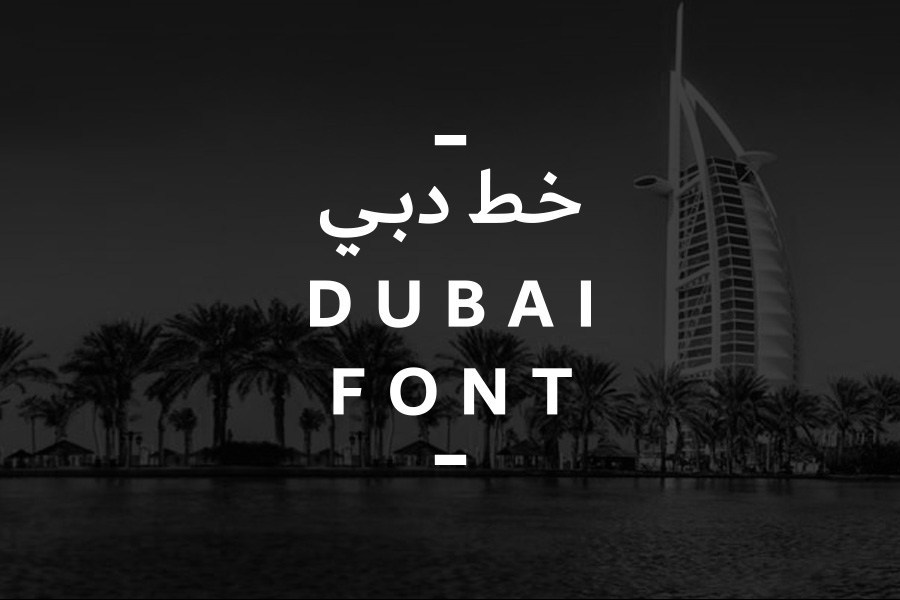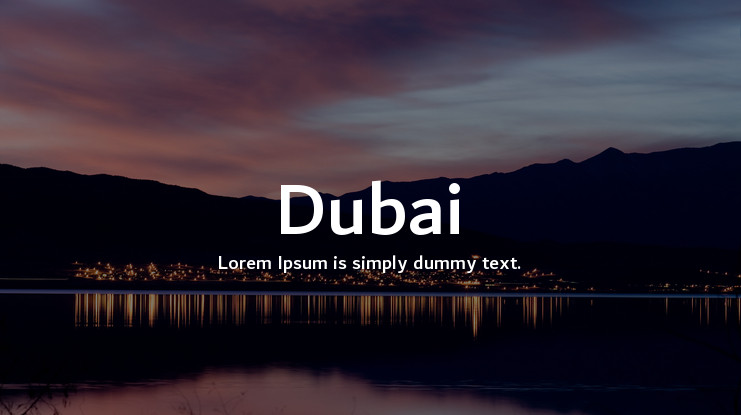
Dubai Font
Dubai Font is famous for its Arabic typeface. This typeface is one of the most used typeface in Microsoft Word and it is available for free. This makes the content fashionable. The content creator creates this font has taken the idea from the luckiest man font in addition, that new typeface has located on the font.
Ordinary with many expert designers, it’s miles giving a top-notch like-minded search for unique operations. In this behavior, it is going to show one of the most particular typefaces. Dubai Font Free This extraordinary top-notch font has are available in a common range at the detail of some of the characters. Having the paper format like comic sans font it has to function the uppercase, punctuation marks.
The font tasteful typeface can be one of the vital top-notch alternatives you may have ever made because of the reality that many designers are already using it for there a ramification of portraying’s capabilities. Download After that, you may be prepared to use this harley davidson font for designing logos, gambling cards, pairing, birthday or invitation playing cards. So, the huge form of using the font is in style producers like guides or cosmetics. This font is finished in pairing and listed in google fonts.